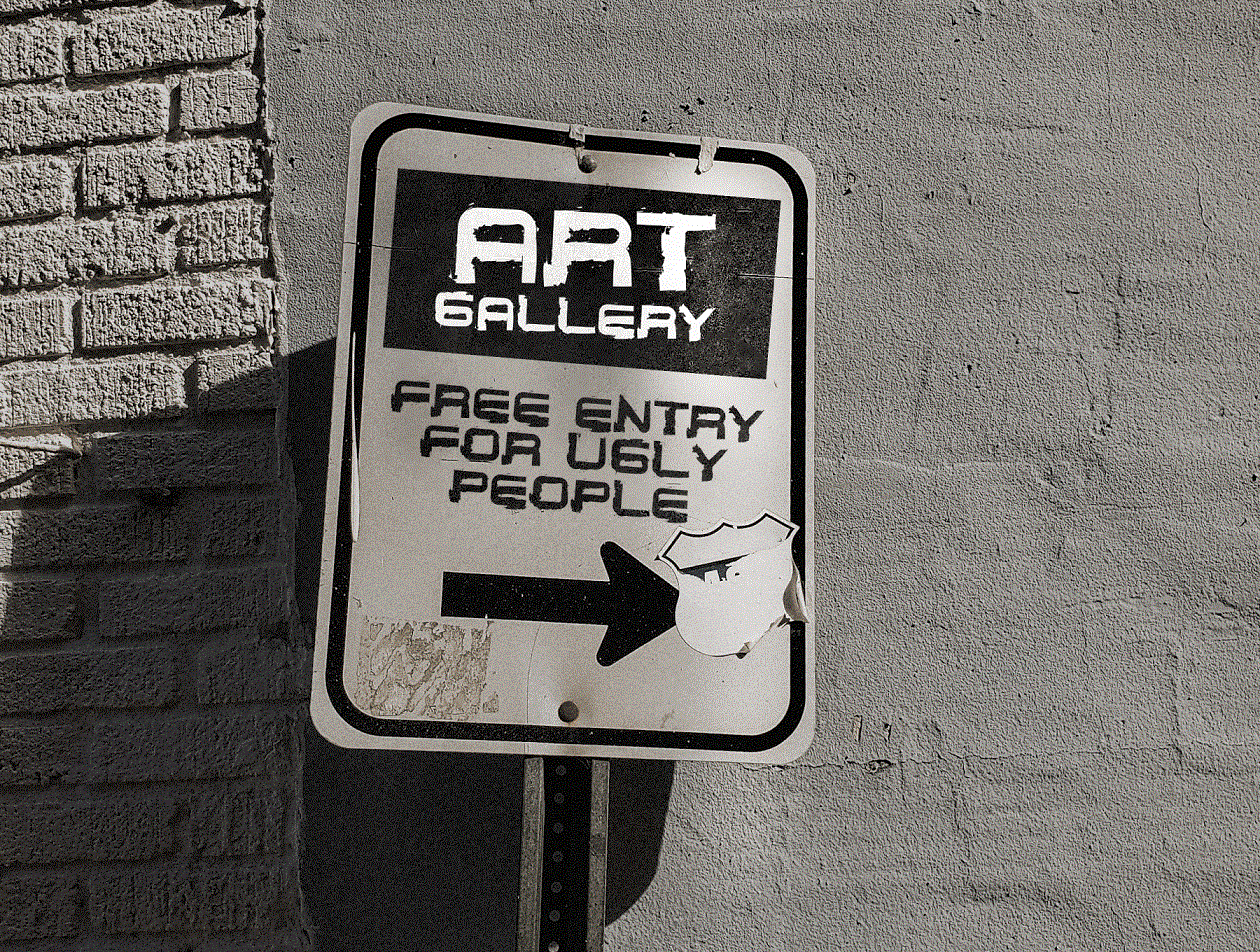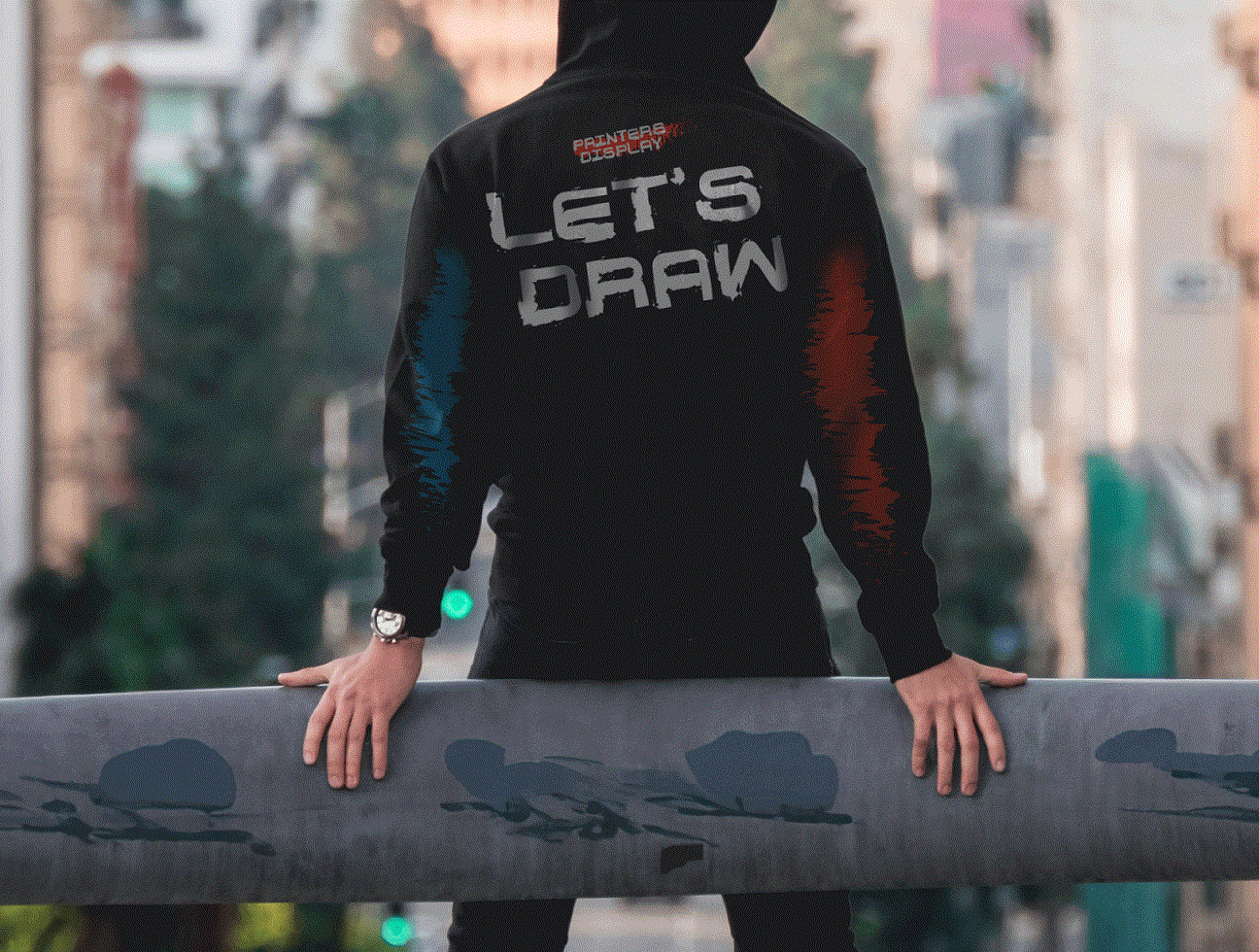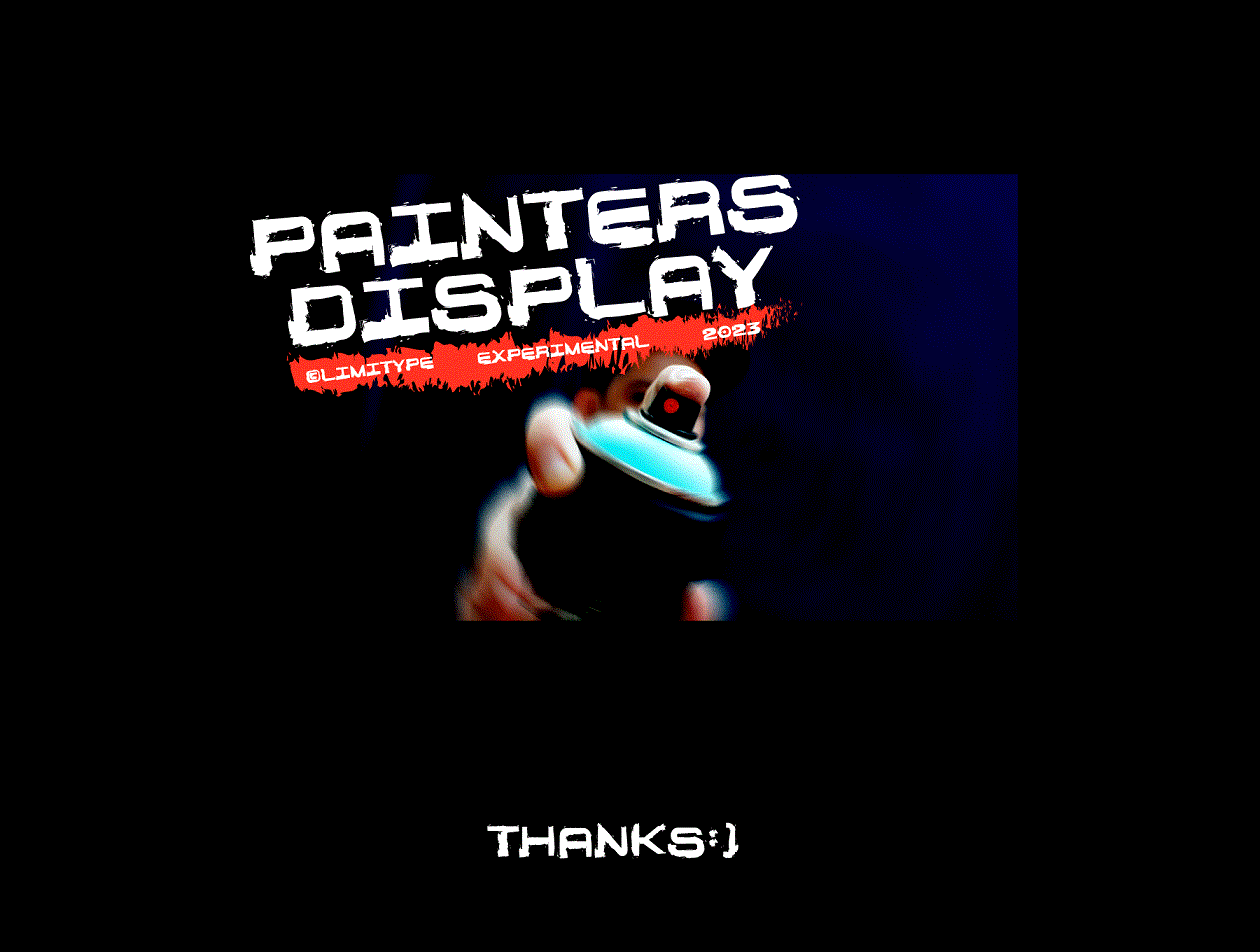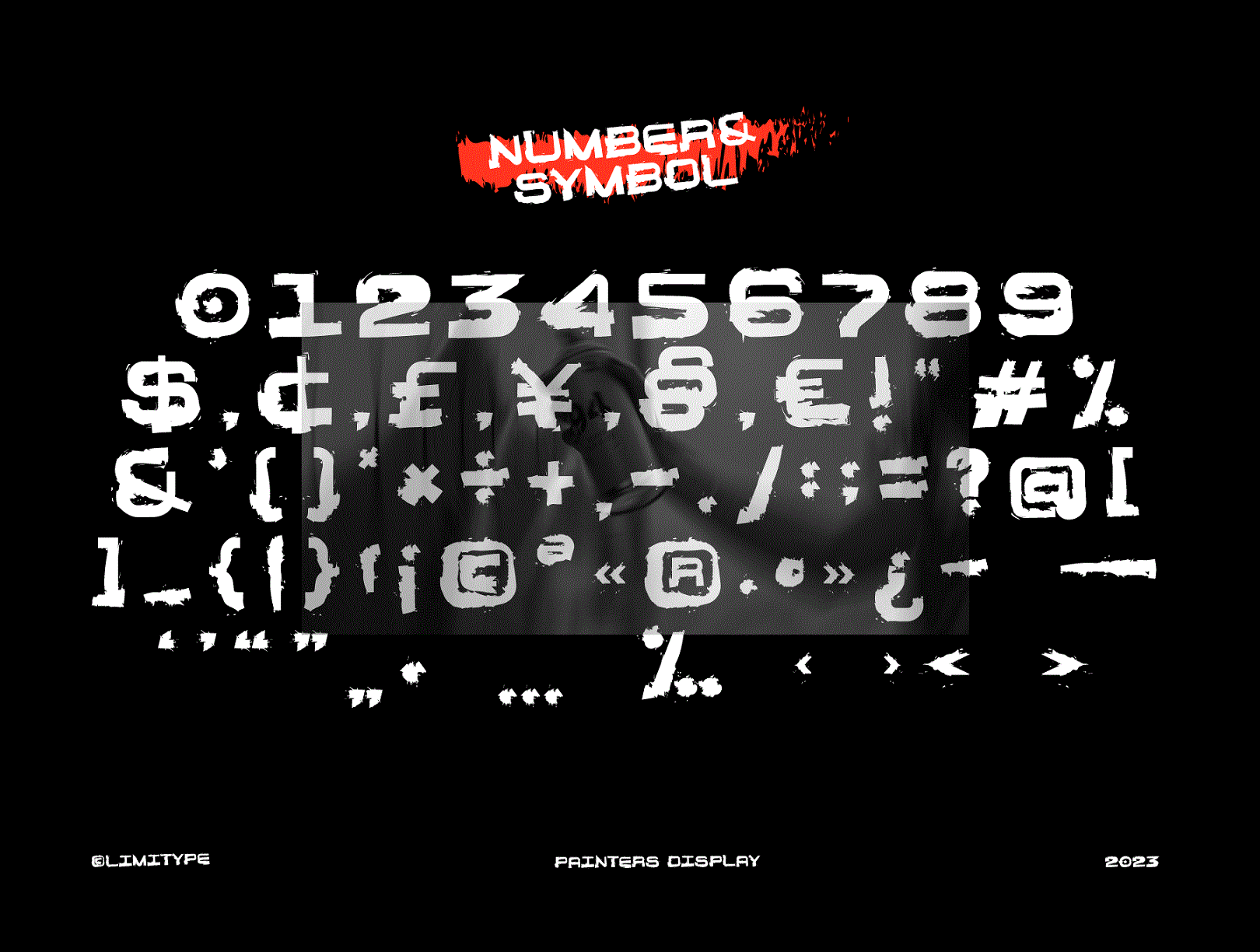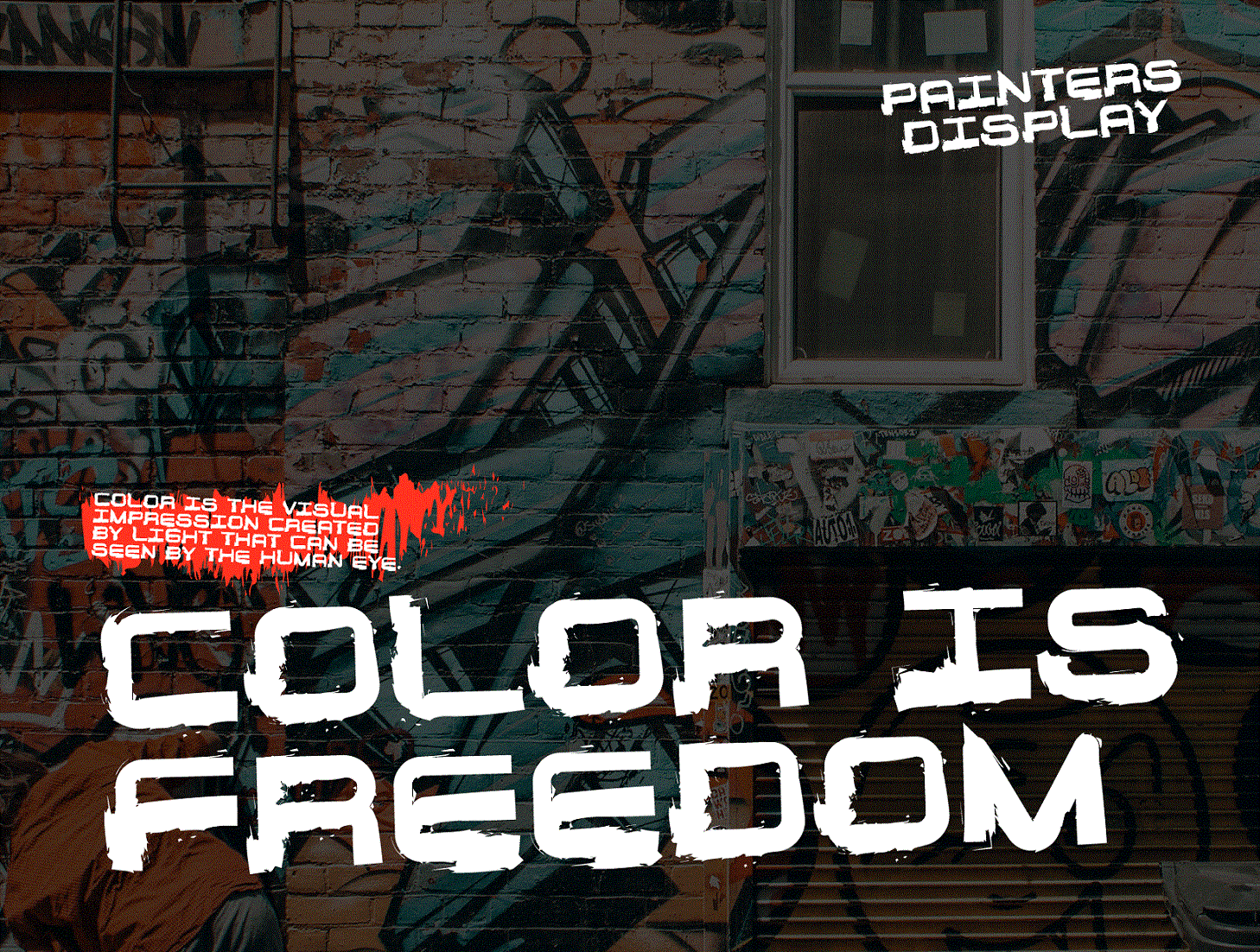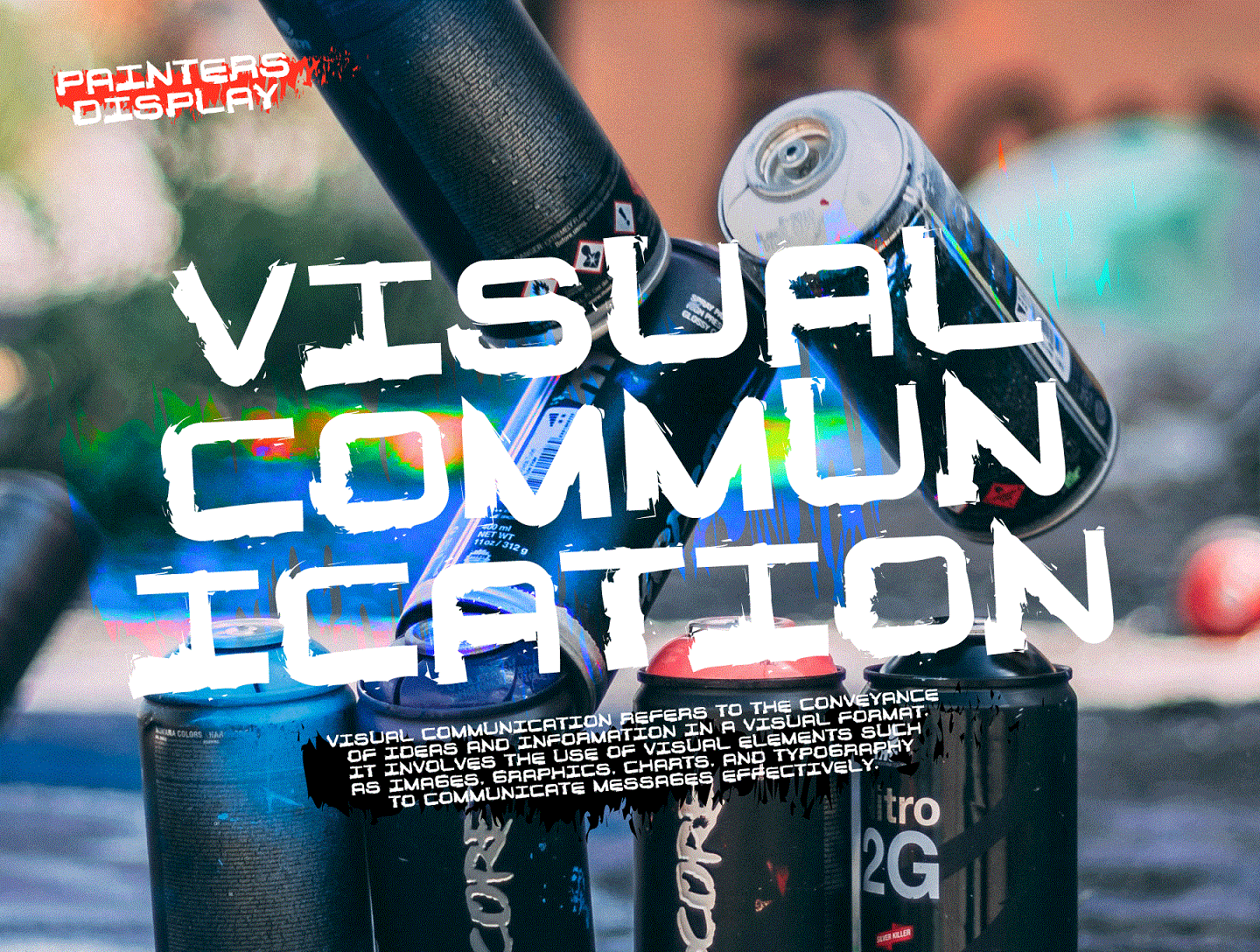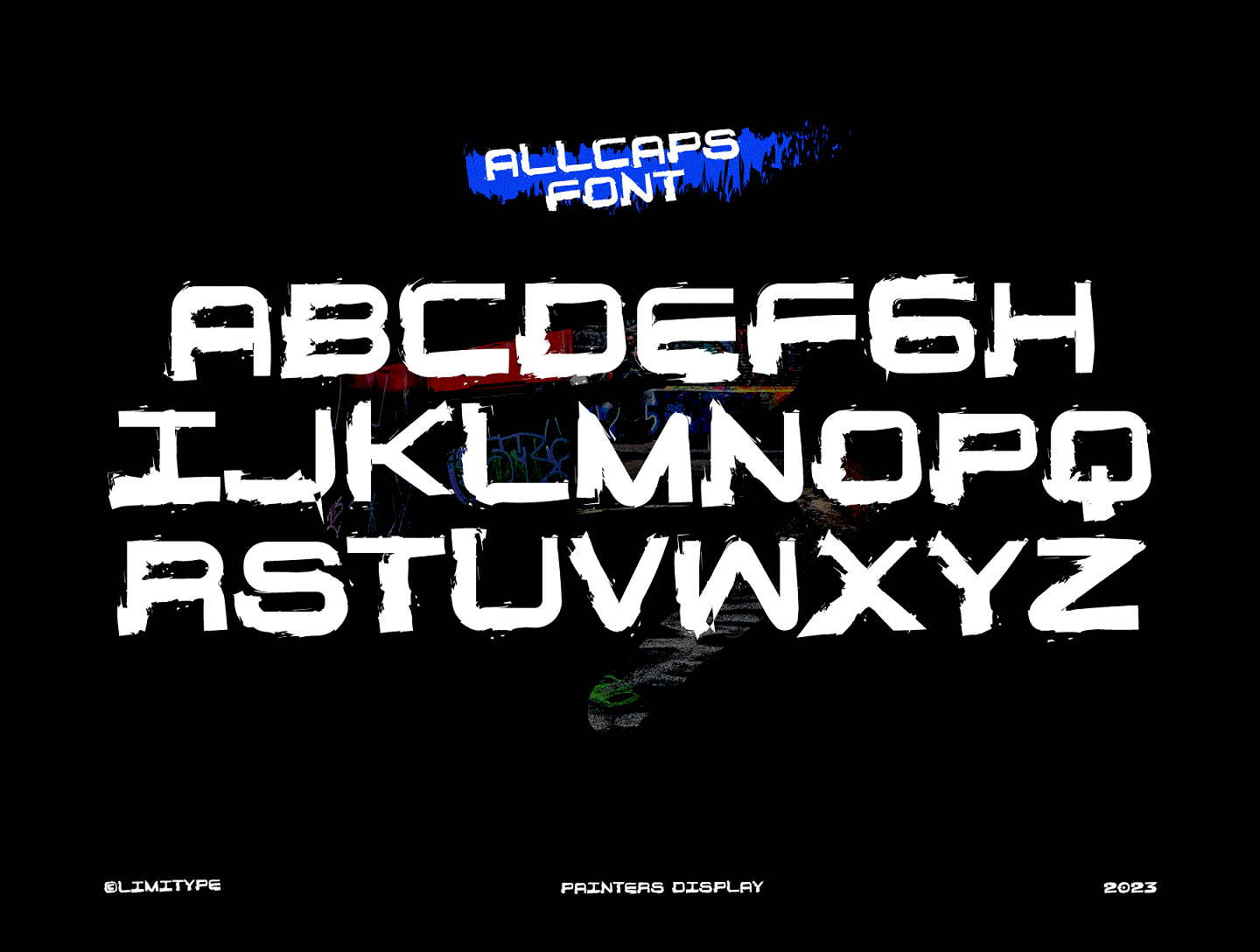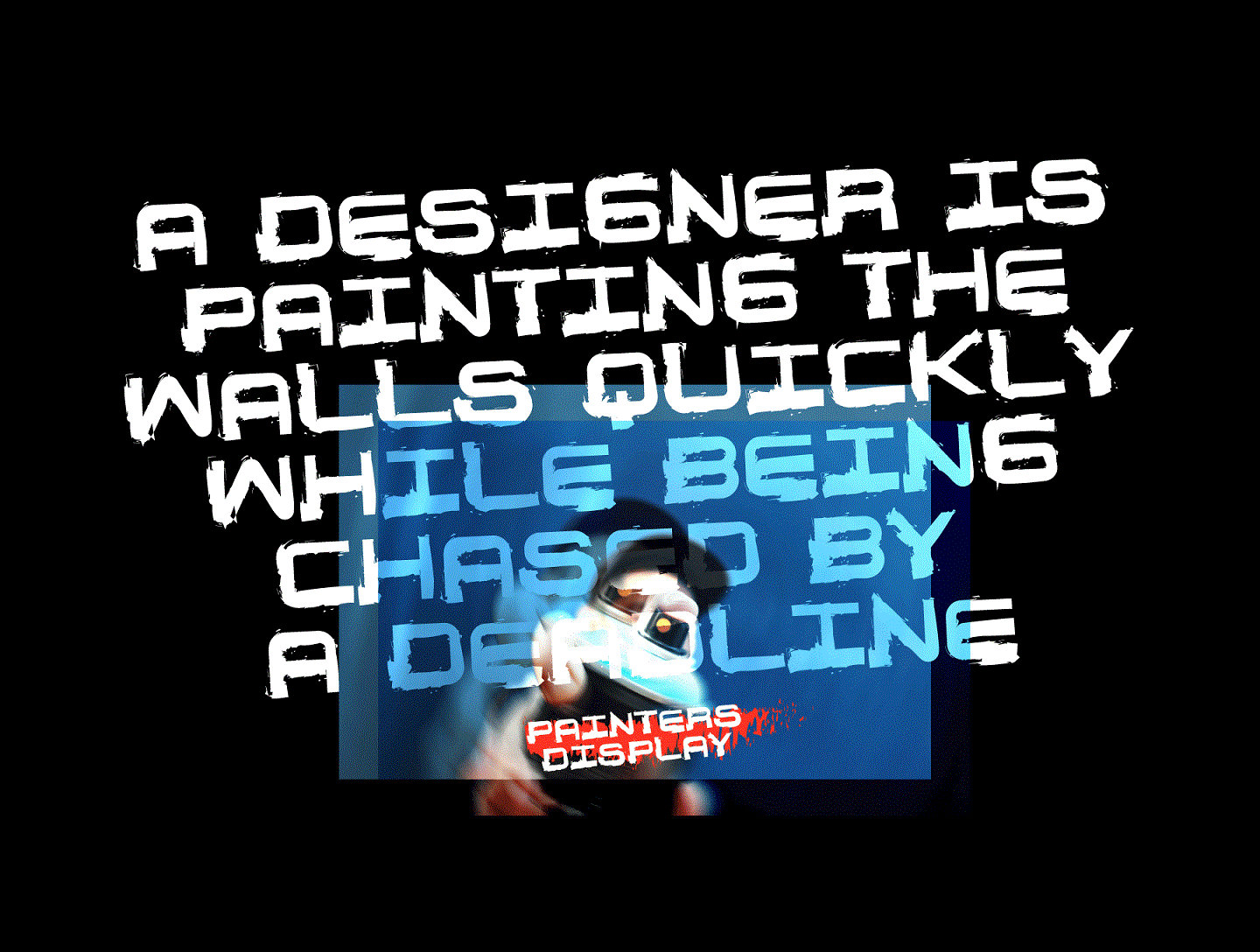
Painters Display
Painters Display is a font with a brutal style but still modern and fun, inspired by paint splashes and scratches, suitable for your fun, free and cool designs. Painters display available Uppercase, Symbol & Number